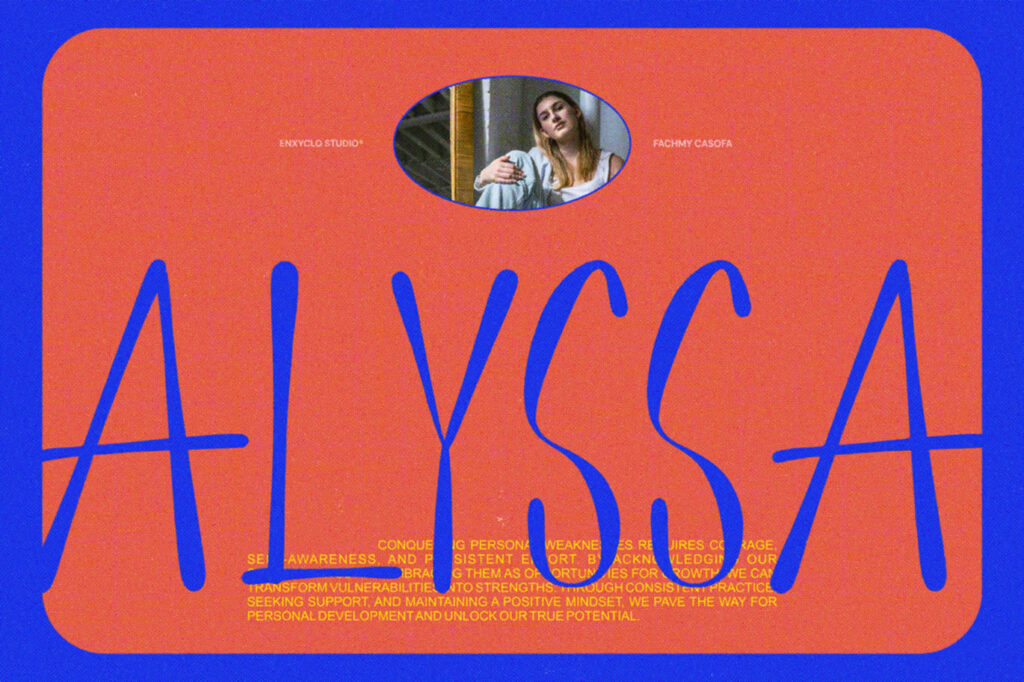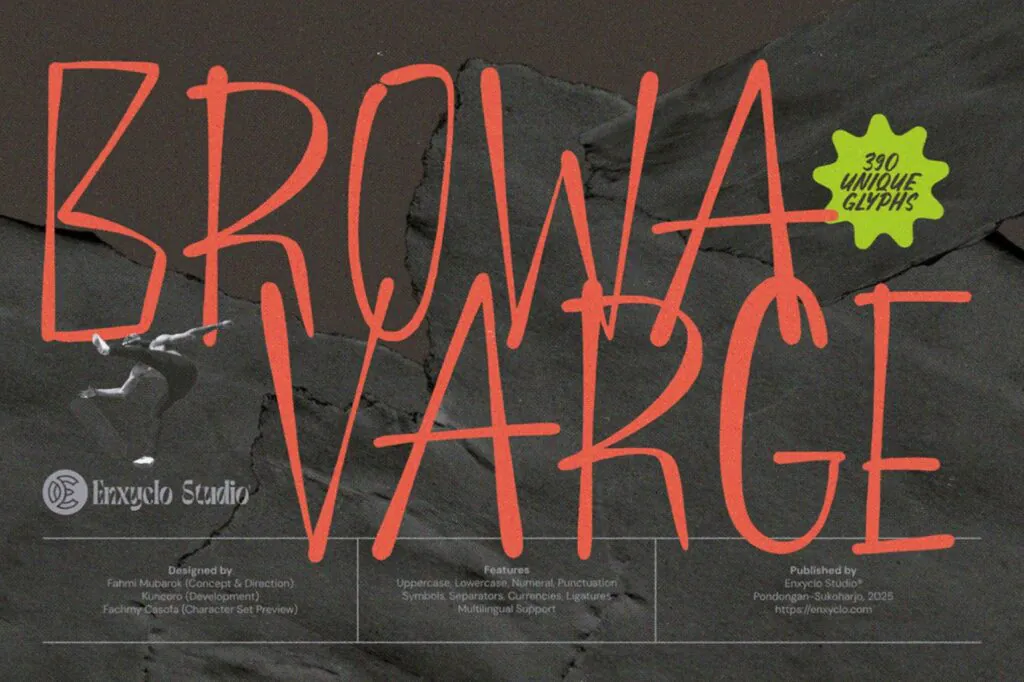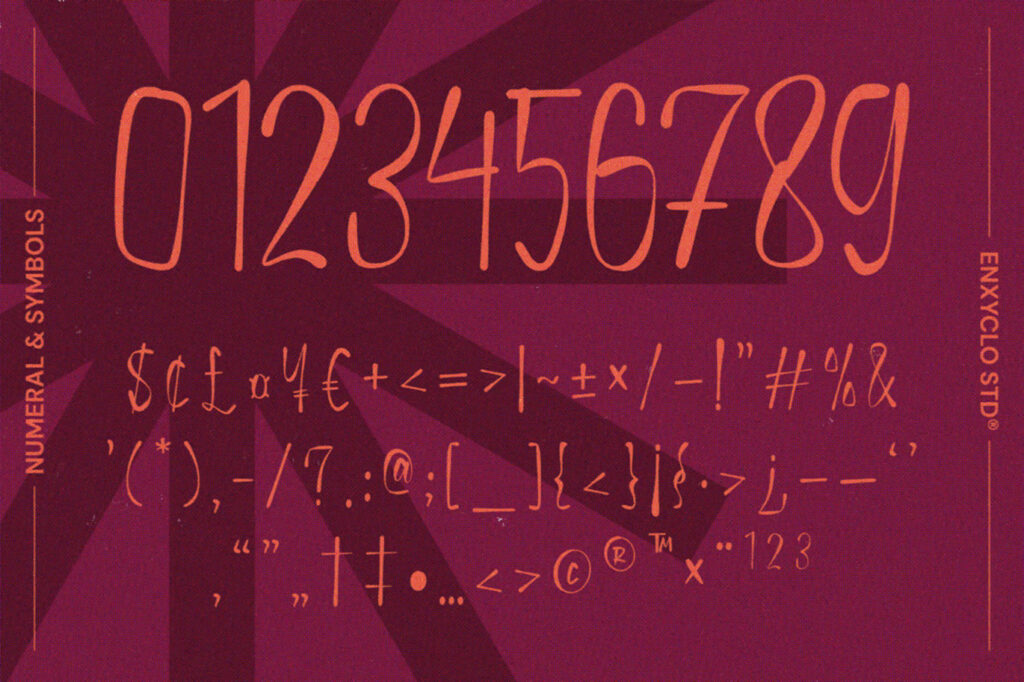
Browavarge Expressive Hand Drawn Display Font
Introducing Browa Varge, a tall, expressive hand-drawn display font with bold character and playful charm. Crafted with personality, each letterform is uniquely imperfect, giving your design projects a warm and organic feel. Its elongated proportions and artistic flair make it ideal for editorial titles, branding, packaging, album covers, posters, and modern logotypes.
Browa Varge contains 390 unique glyphs, including uppercase, lowercase, numbers, punctuation, currency symbols, ligatures, and multilingual support — giving you the freedom to create with confidence in multiple languages and contexts.